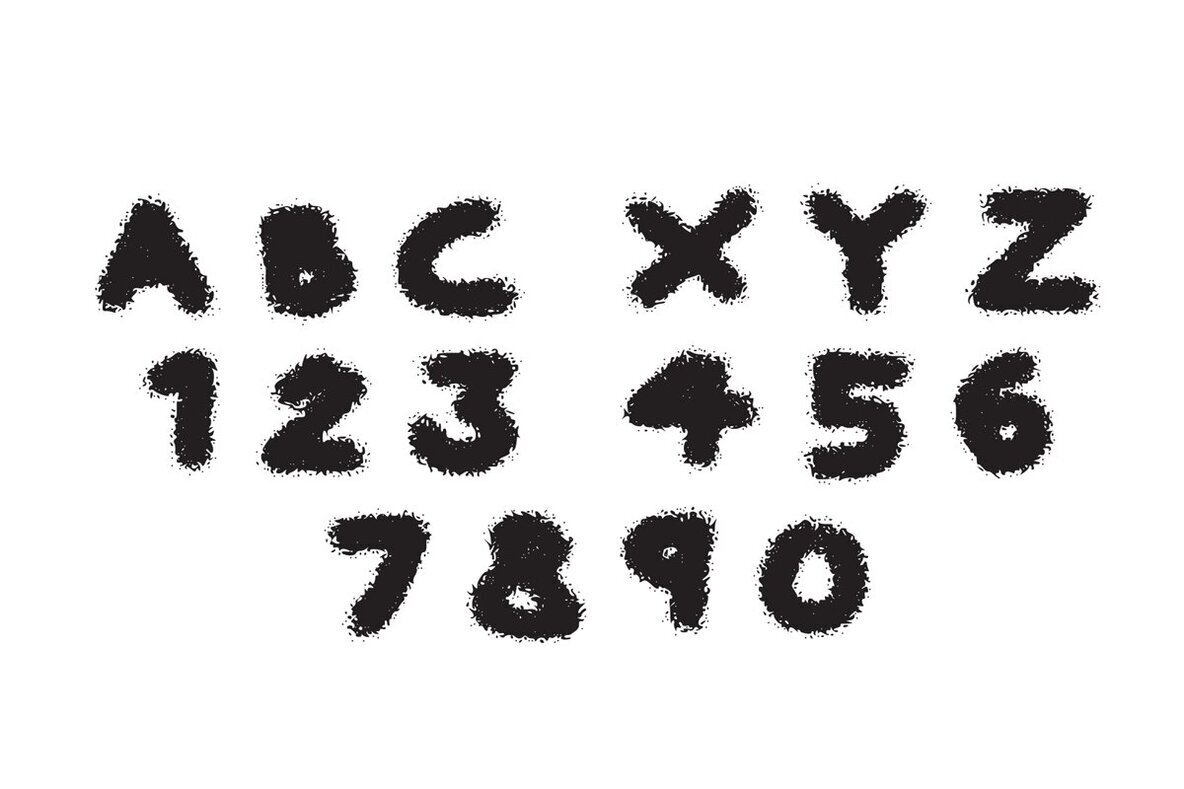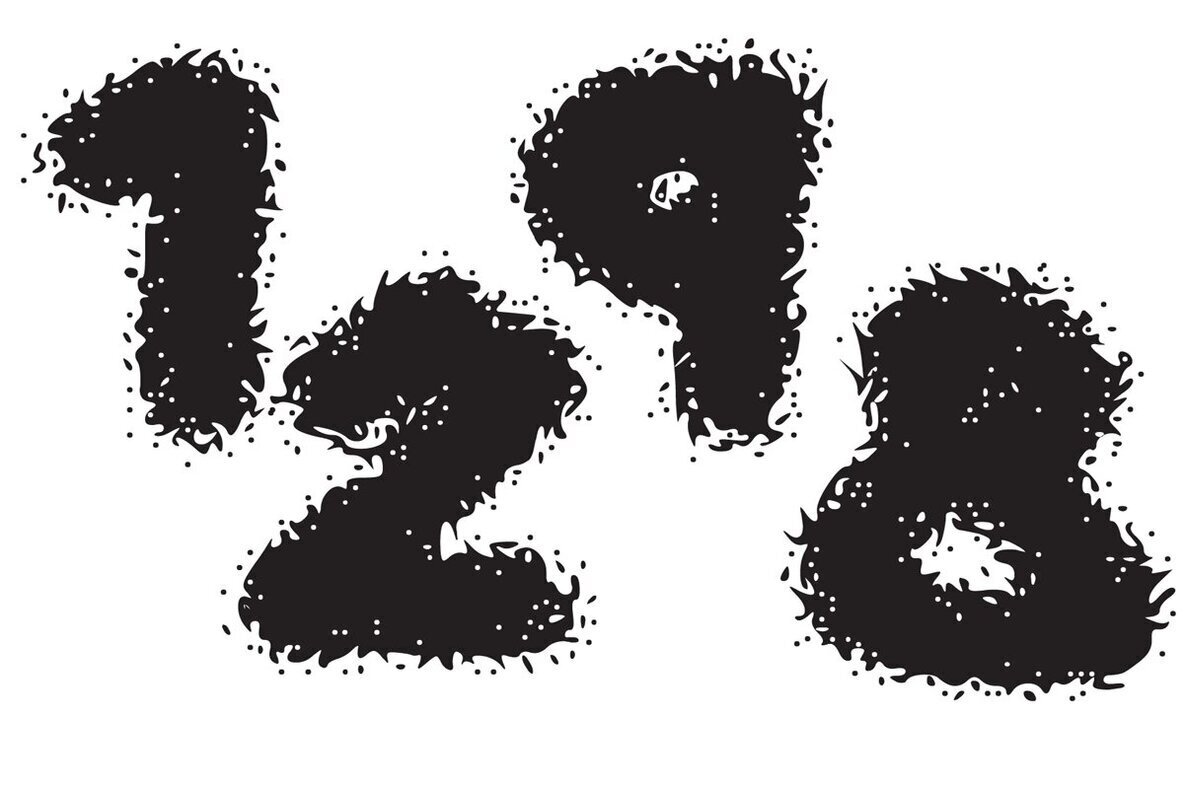
Fuz is a cool and brushed display font. No matter the topic, this font will be an incredible asset to your fonts’ library, as it has the potential to elevate any creation.